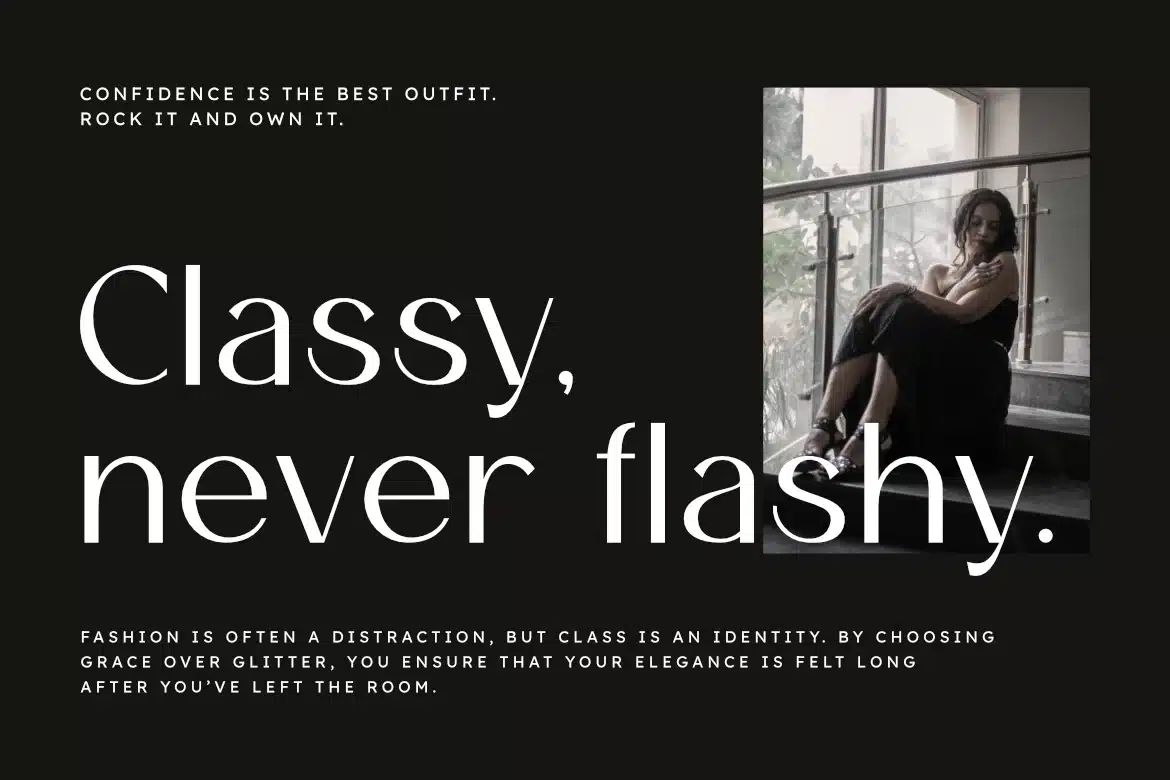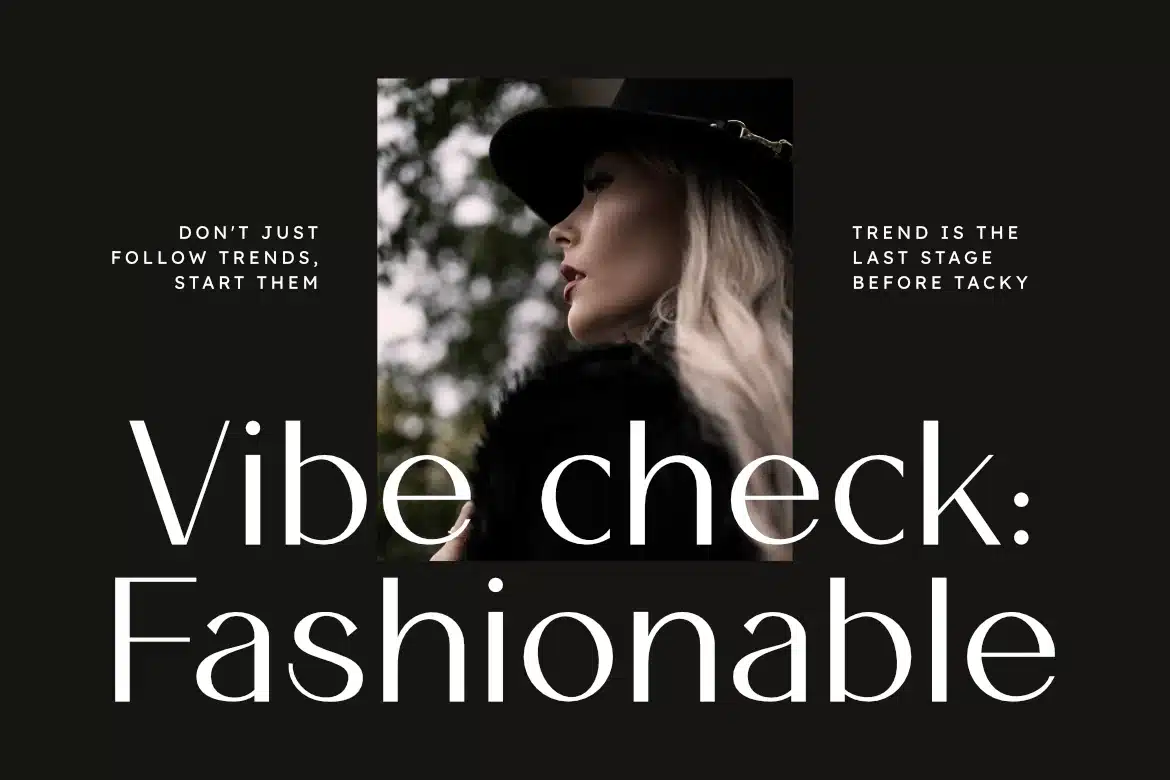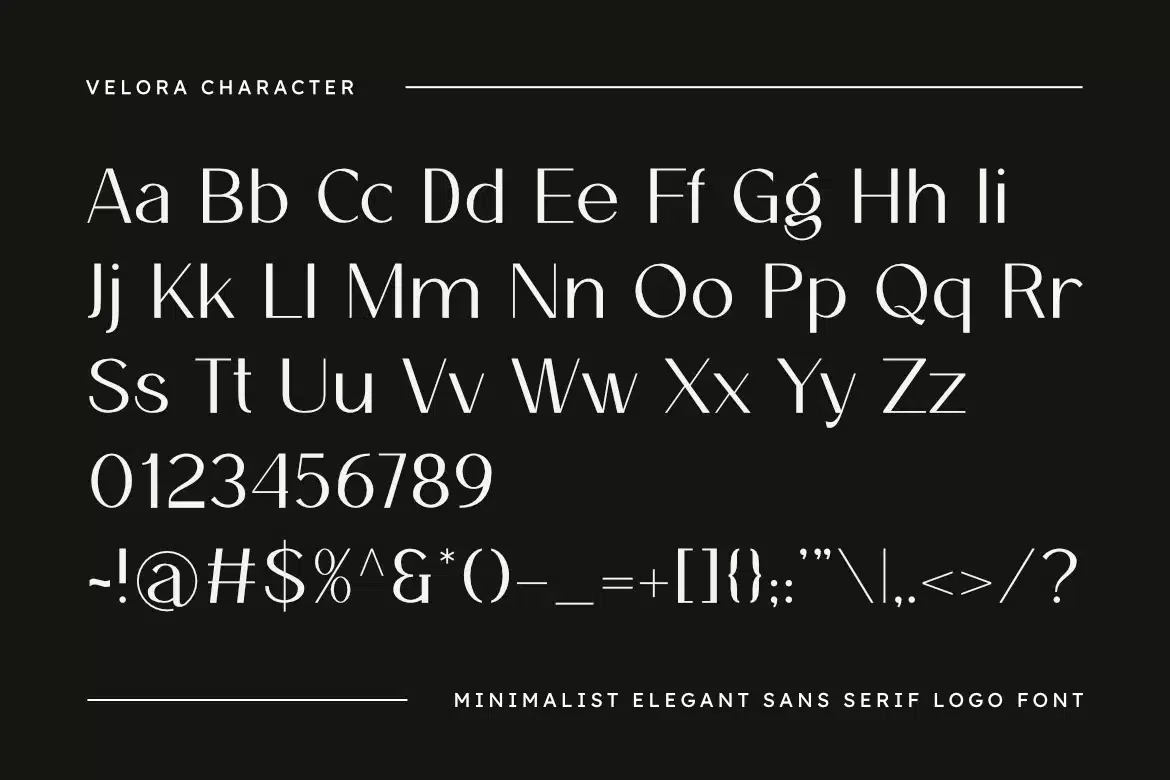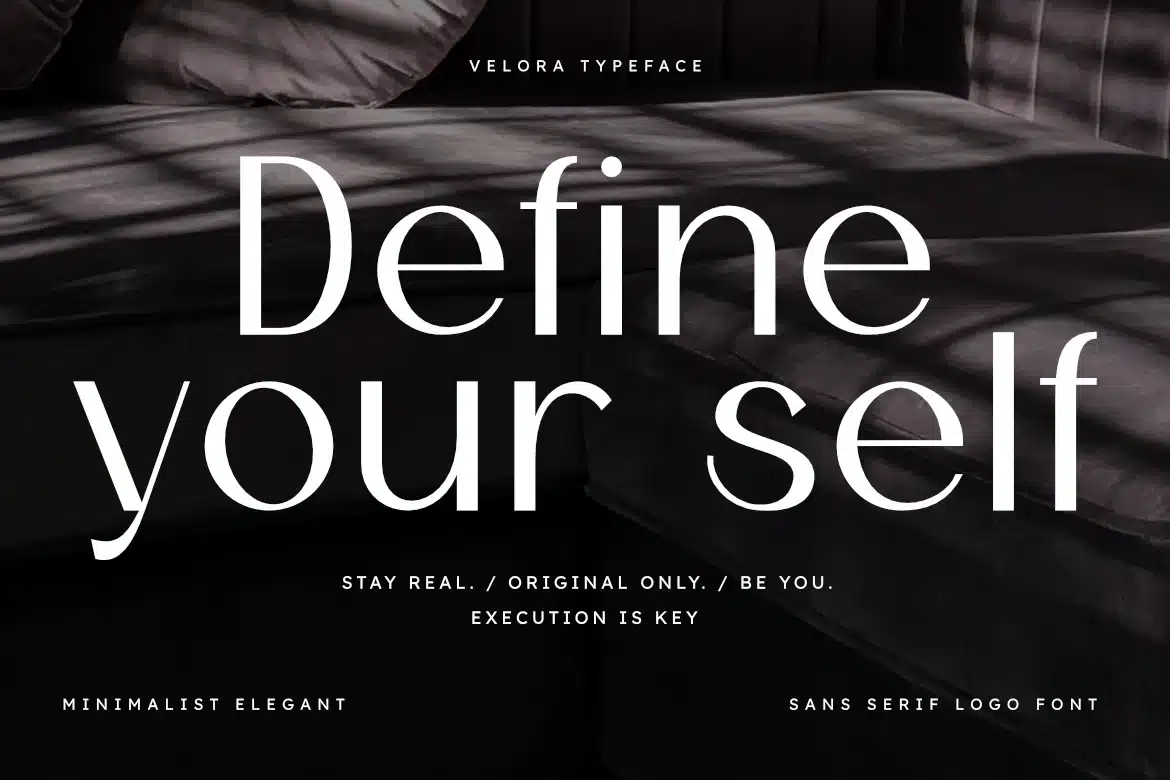
Velora – Minimalist Elegant Sans Serif Logo Font
Velora is a sophisticated sans serif typeface that embodies the essence of modern luxury and minimalist grace. Designed with clean, high-contrast lines and refined geometric proportions, Velora is the ultimate choice for designers aiming to create high-end brand identities, sleek logos, and professional editorial layouts.
Its airy and balanced letterforms provide a polished, "quiet luxury" look that radiates confidence and style. Velora excels in contexts where simplicity and high-class aesthetics are paramount, making it an ideal choice for luxury boutique signage, fashion magazines, and premium product packaging.
Main Features:
- Clean, Sleek, and Minimalist Design
- Sophisticated Sans Serif Letterforms
- Optimized Specifically for Logos & Branding
- High-Visibility Display Typography
Best Used For:
Minimalist logo branding, luxury boutique identity, fashion magazine headers, premium skincare packaging, architectural portfolios, and contemporary web headers.